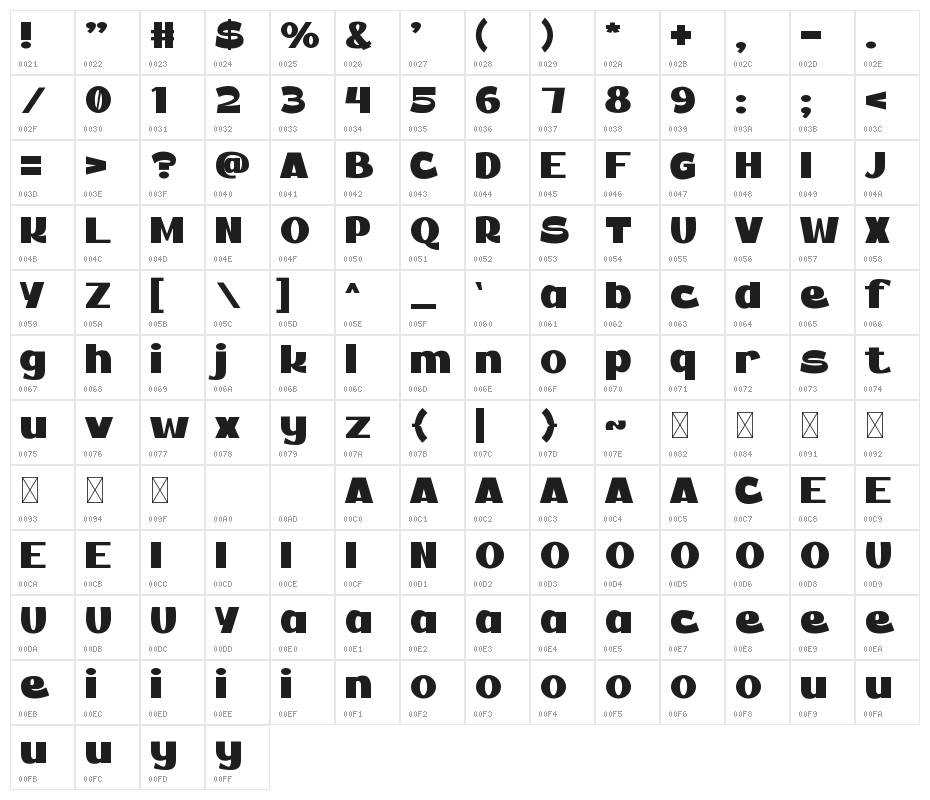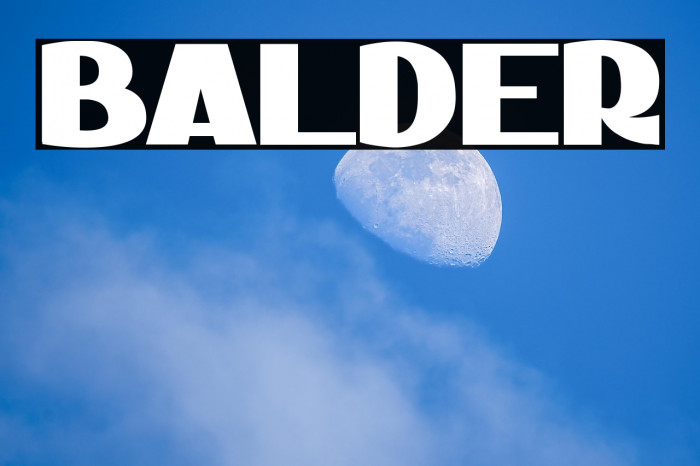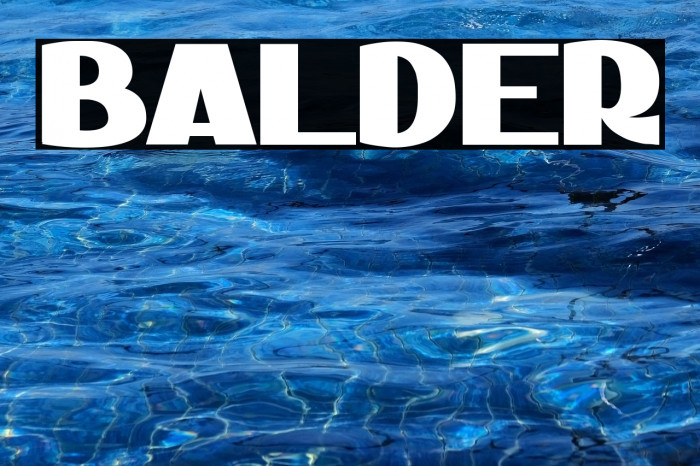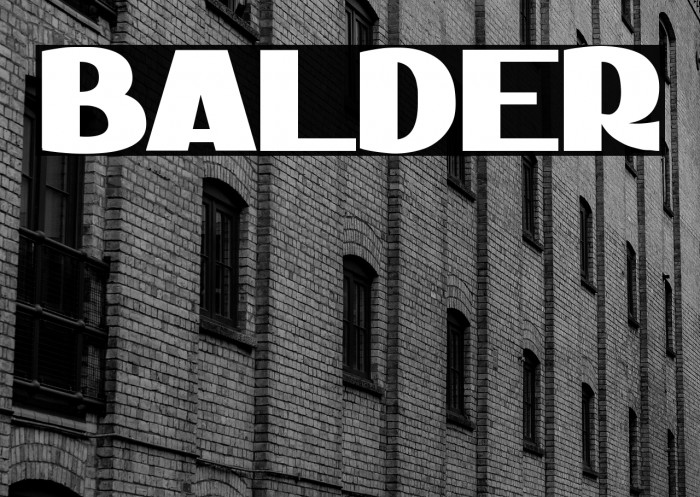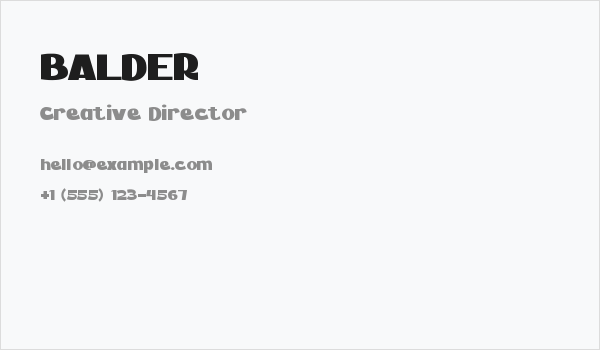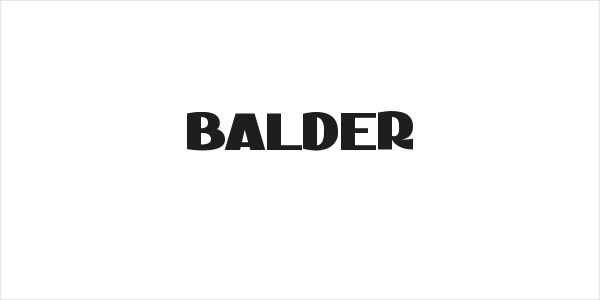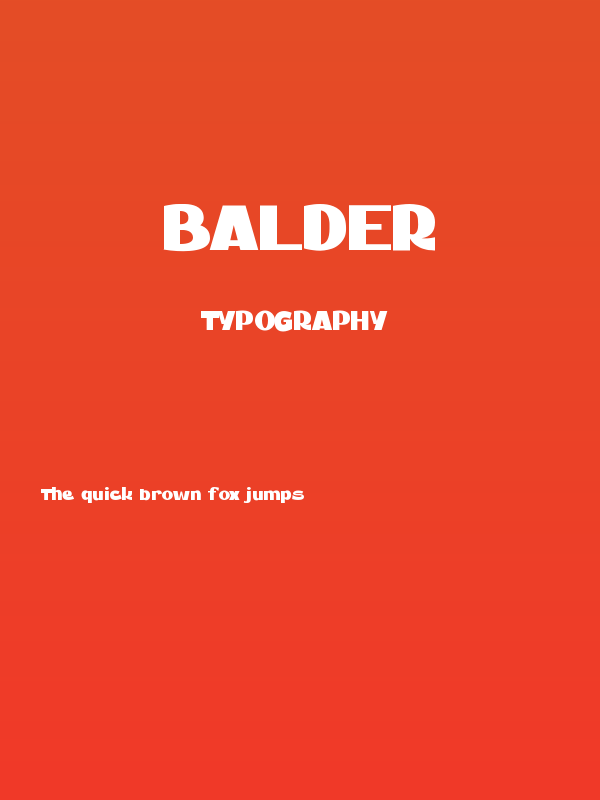
BALDER Font
BALDER Description
This font features a bold and robust design with a strong presence, characterized by thick strokes and a slightly condensed appearance. The uppercase letters are particularly striking, with a uniform weight that conveys a sense of stability and confidence. The lowercase letters maintain the same boldness, ensuring consistency across the typeface. The numerals are equally bold, making them stand out clearly. Special characters are designed to match the overall aesthetic, providing a cohesive look. This font is ideal for making a strong visual impact.
| Proposed Projects | Ideal for branding, posters, headlines, and any project requiring a strong visual impact. |